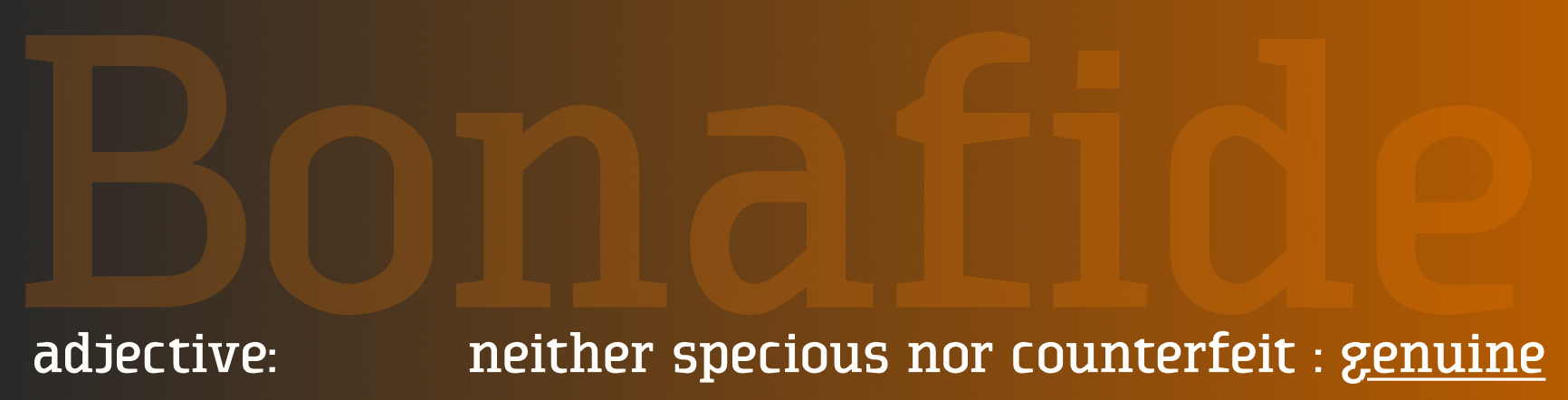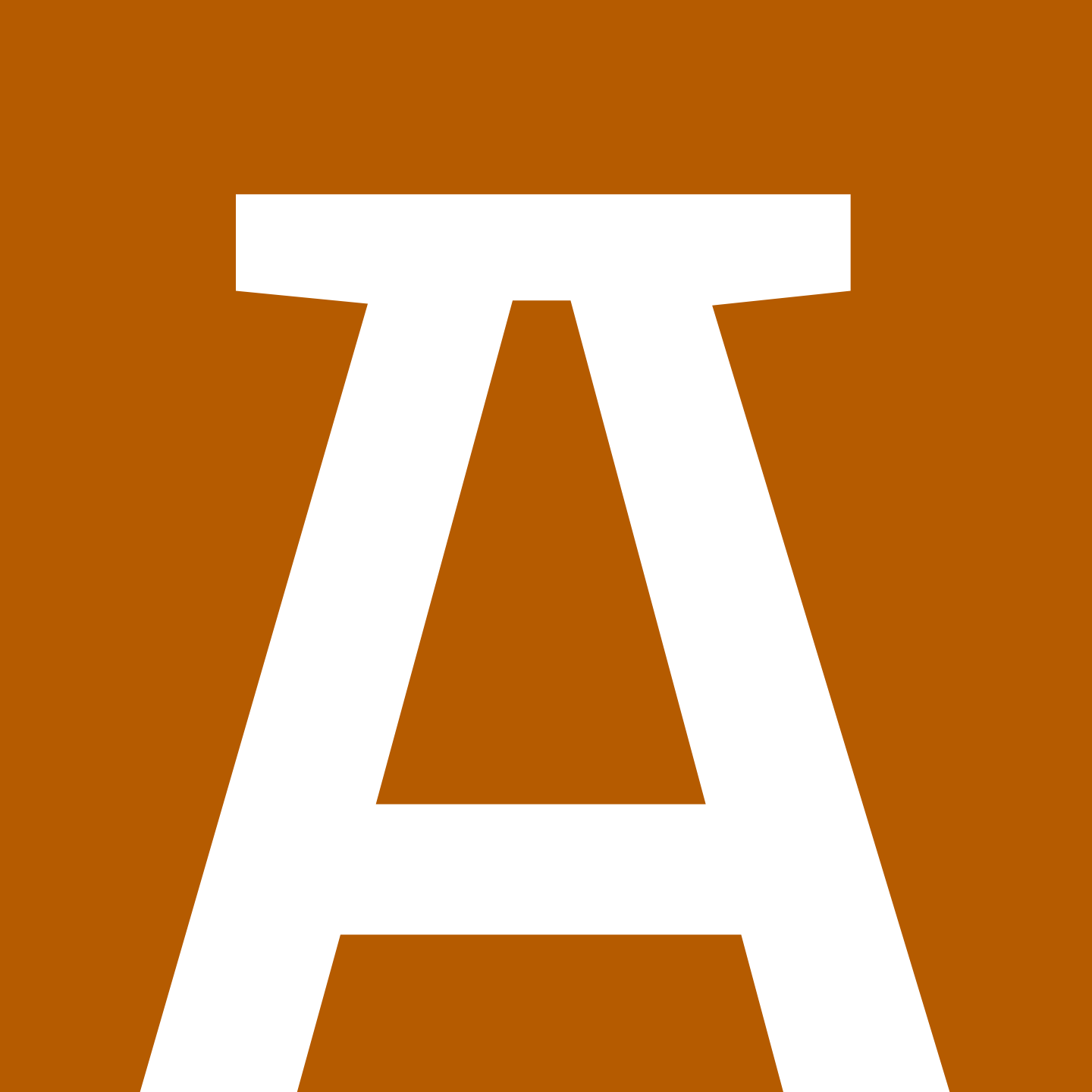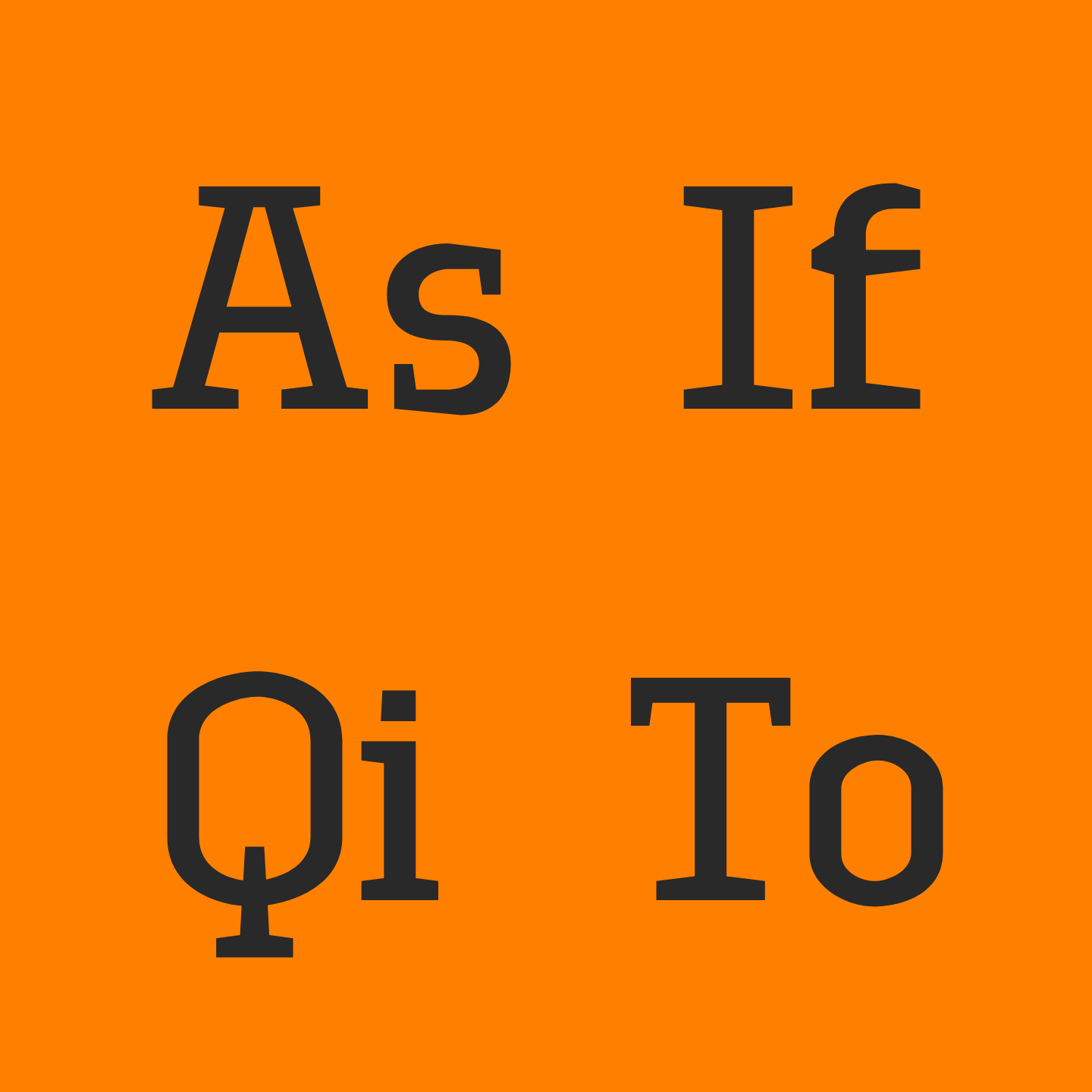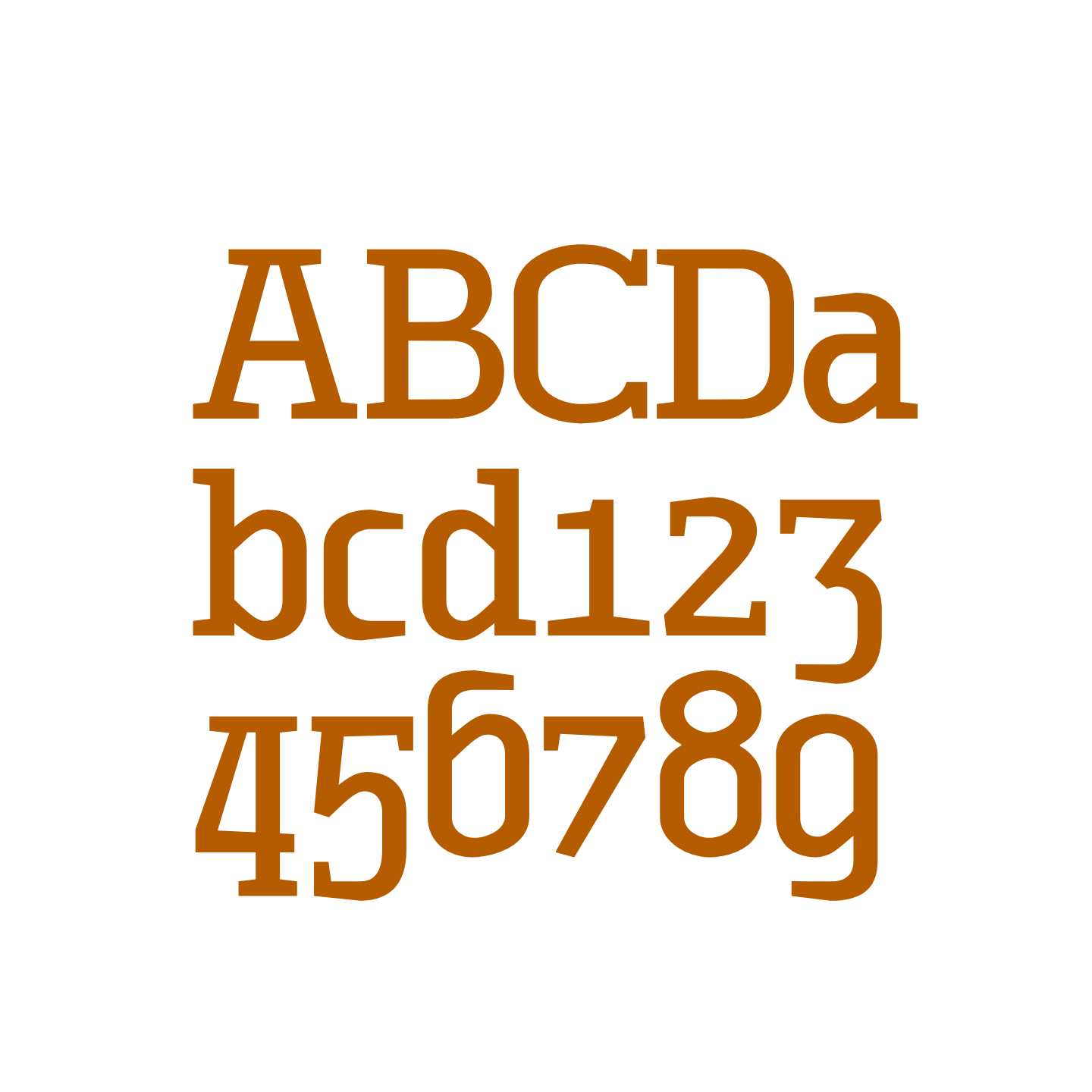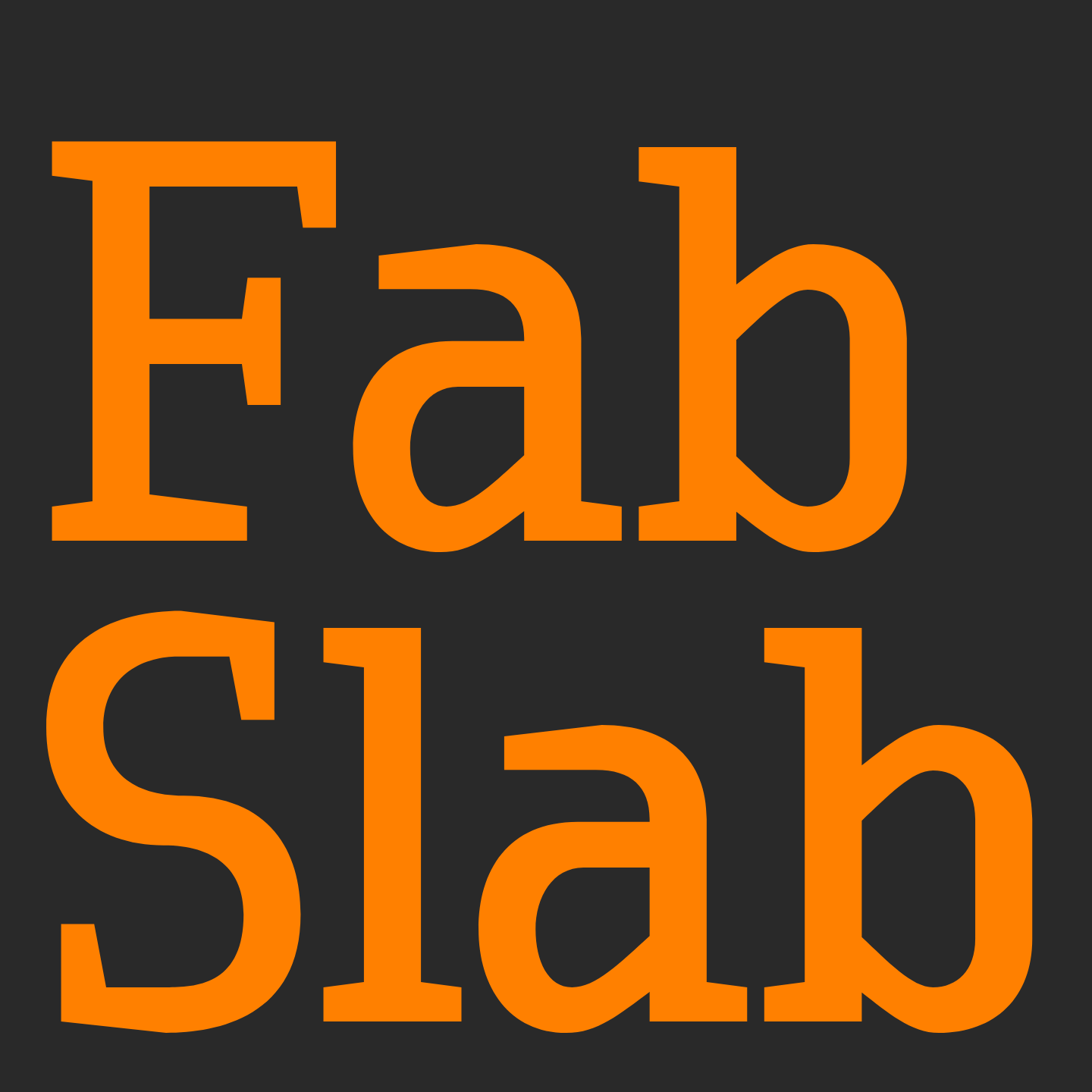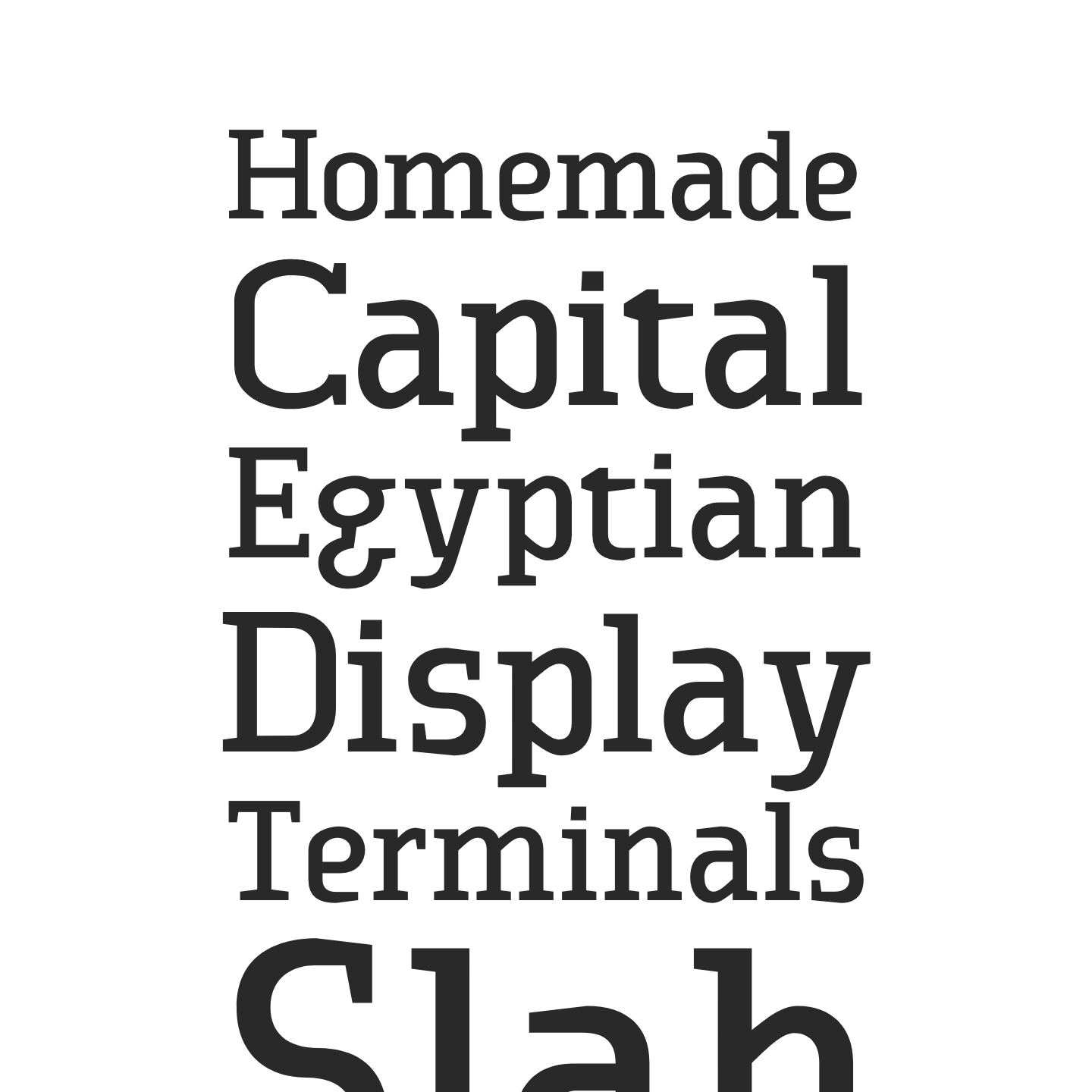
Bonafide Slab
Serif Text Font
Bonafide is a geometric slab serif typeface that is constructed from a normalized set of elements. The result is a quick, homemade feel that gets its charm from its own internal logic.